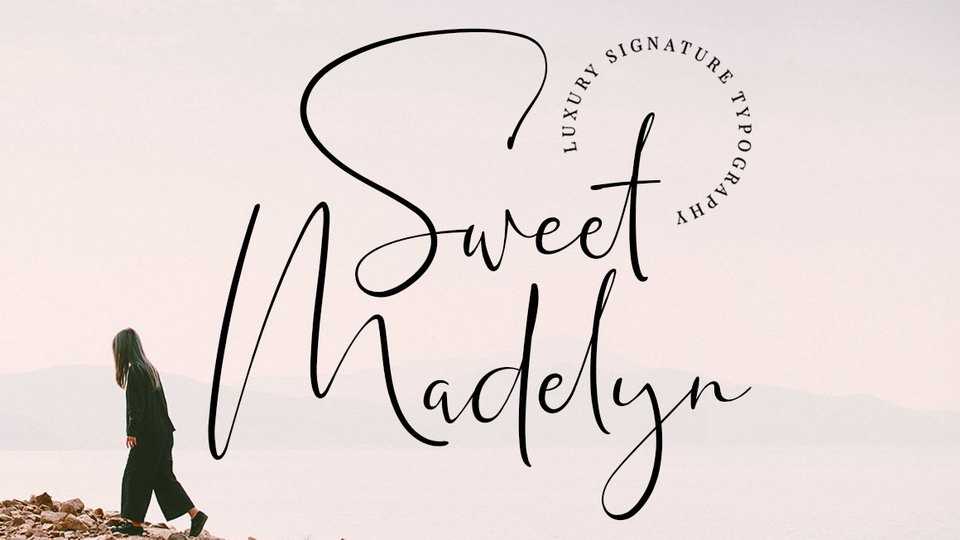
Download Sweet Madelyn font, a fashionable, luxury and super-chilled new handwriting script. Sweet Madelyn is perfect for branding, only high-end, upscale, sophisticated branding design.